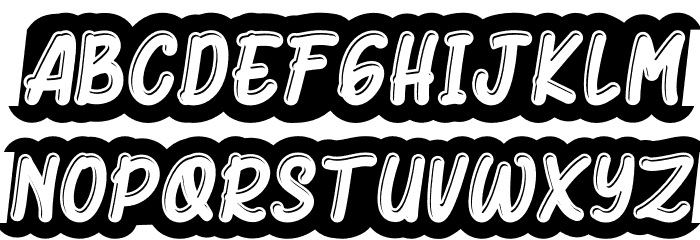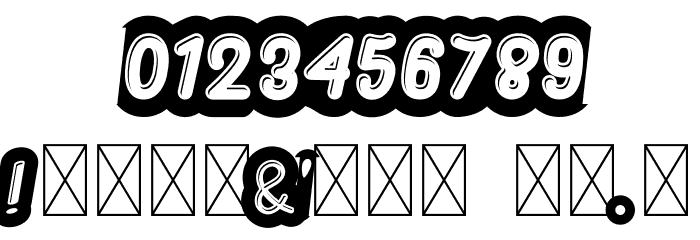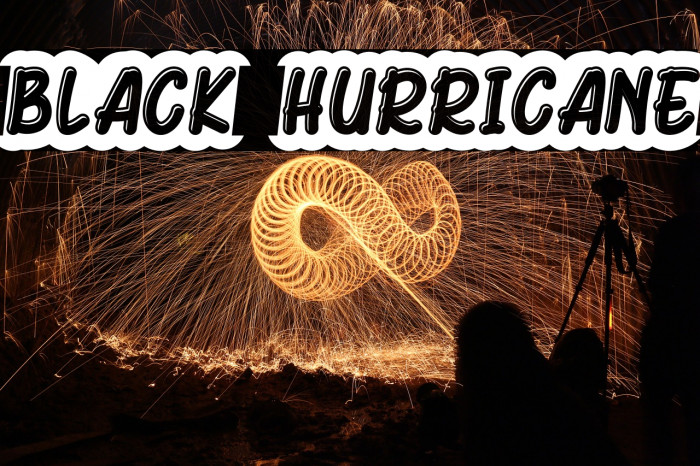
Black Hurricane Font
This font features a bold, dynamic style with a thick, black outline surrounding each character, giving it a striking and impactful appearance. The inner letters are white with a playful, slightly irregular script that adds a sense of movement and energy. The uppercase and lowercase letters maintain a consistent style, with rounded edges and a casual, handwritten feel. The numbers and special characters follow the same design, ensuring uniformity across all elements. This font is ideal for projects that require a bold statement or a fun, energetic vibe.
A bold, outlined script font with a playful, energetic style.